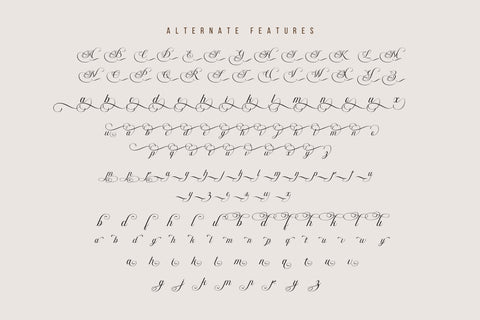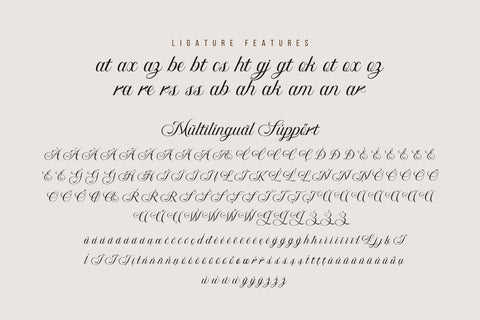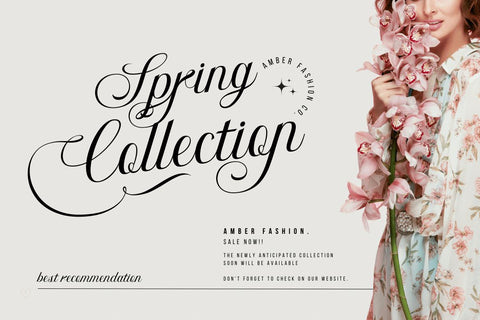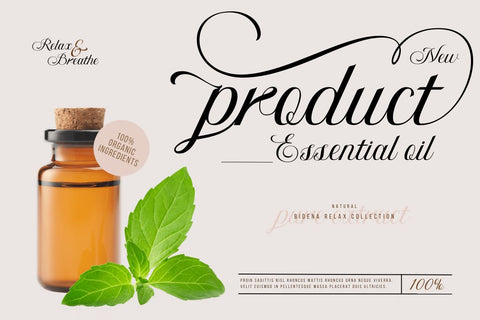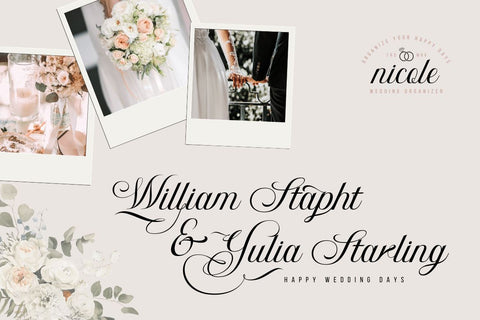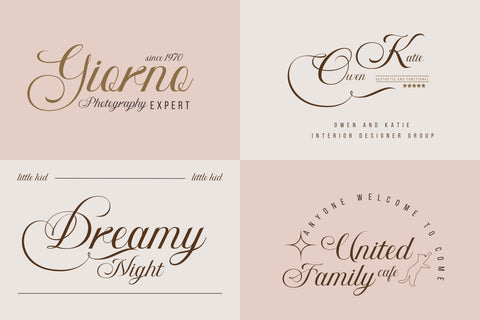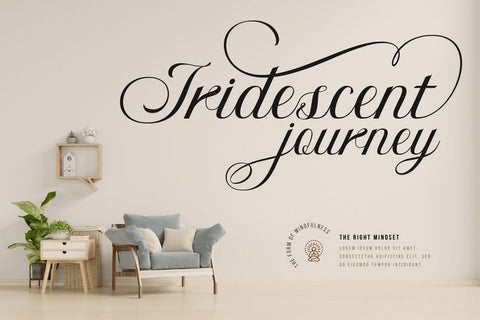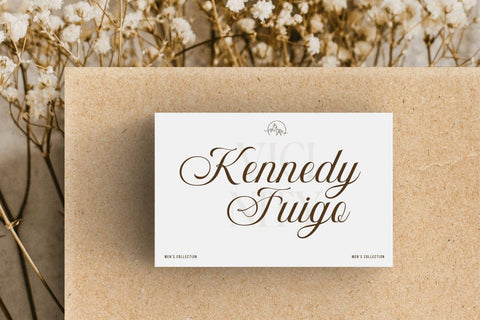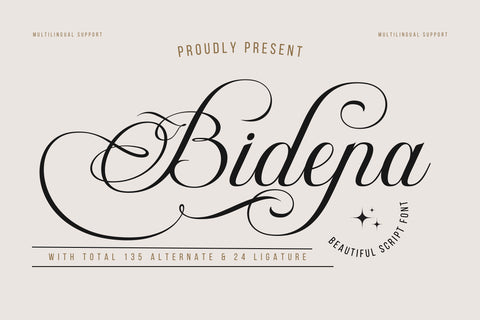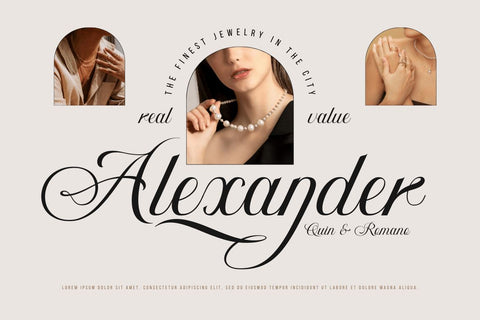
Bidena | Script Font
Introducing Bidena, the perfect script font for those looking to add a touch of elegance and sophistication to their designs. With its unique and stylish curves on each character, Bidena is perfect for all kinds of projects that require a touch of sophistication and class.
This font features stylistic set alternates and ligatures that add an extra element of style and creativity to your work. Its flowing lines and intricate details create a stunning and memorable impression that is sure to leave a lasting impression on your audience.
Bidena is perfect for any design project, from wedding invitations to branding and advertising materials. Its unique and versatile style makes it the perfect choice for designers who want to add a touch of personality and character to their work.
- Alternate, Ligature